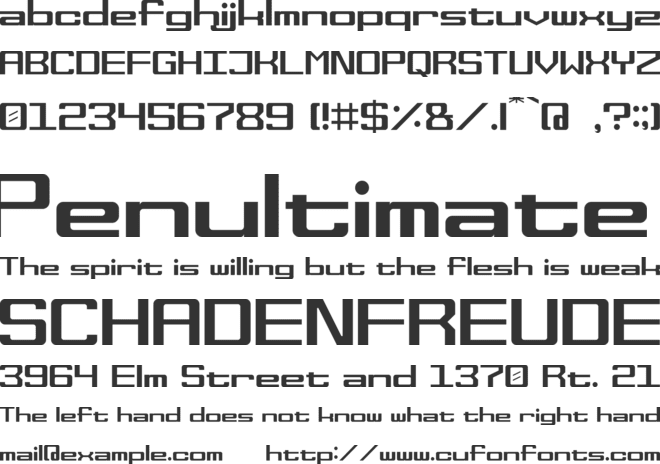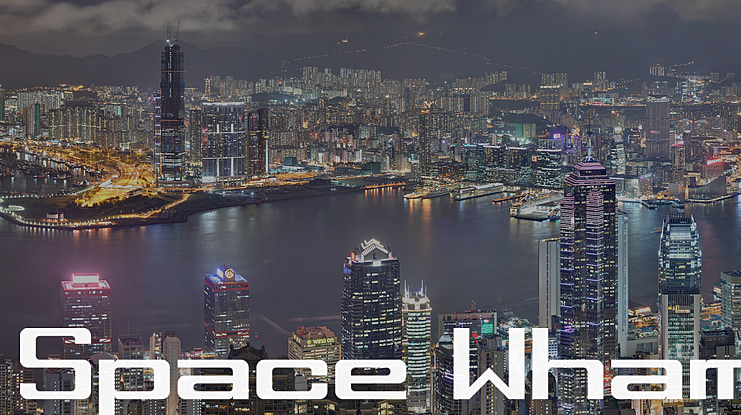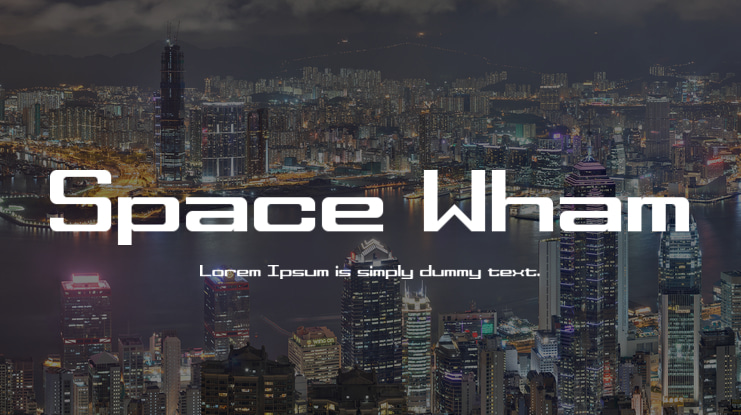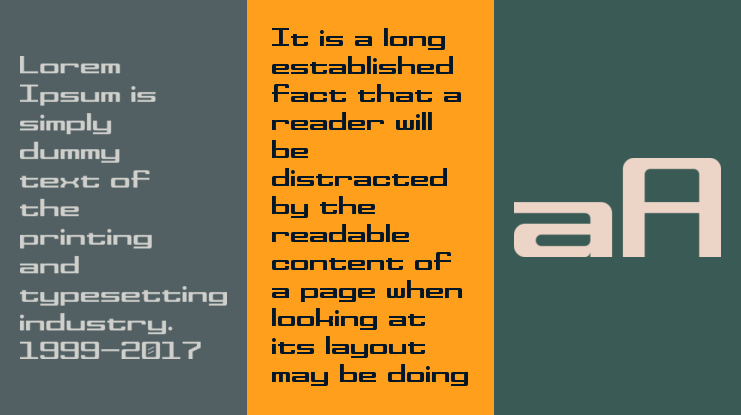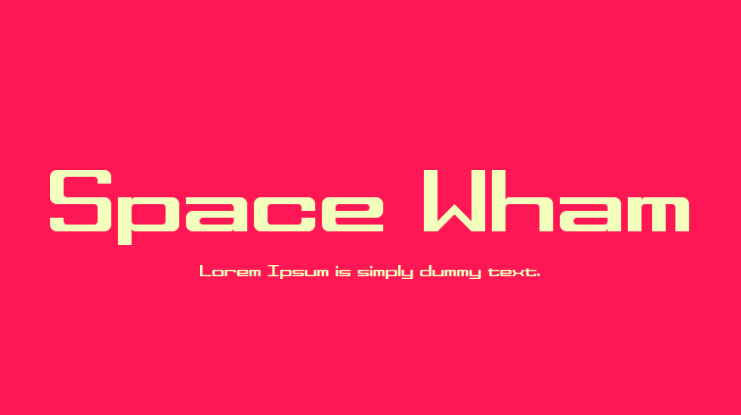
Space Wham Font
A slightly chimeric sci-fi design with no relation to Space Blam, Space Cram, Space Dam, Space Flam, Space Gram, Space Ham, Space Jam, Space Kazaam, Space Ma'am, Space Pram, Space Ram, Space Slam, Space Tram, or Space Yam.
In making this I attempted to achieve a harmony between angles and curves. You can see it especially well on "B" and "&".